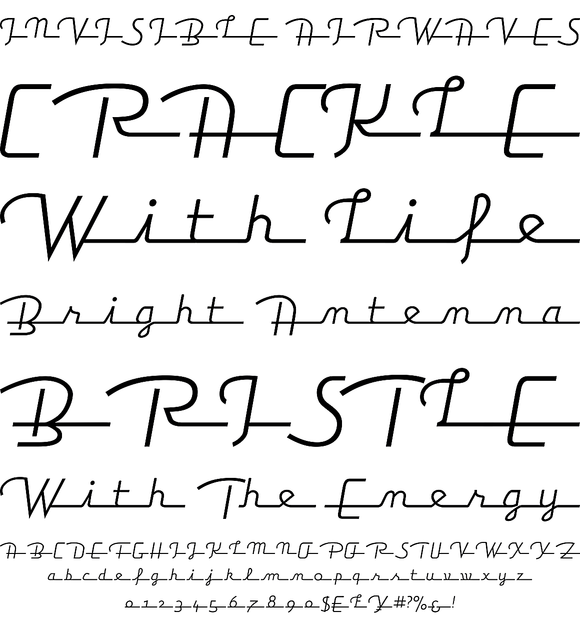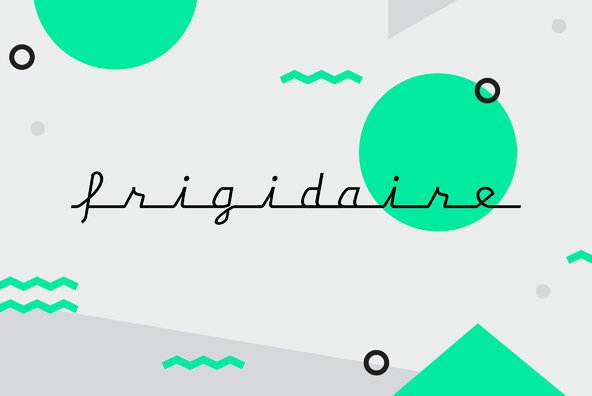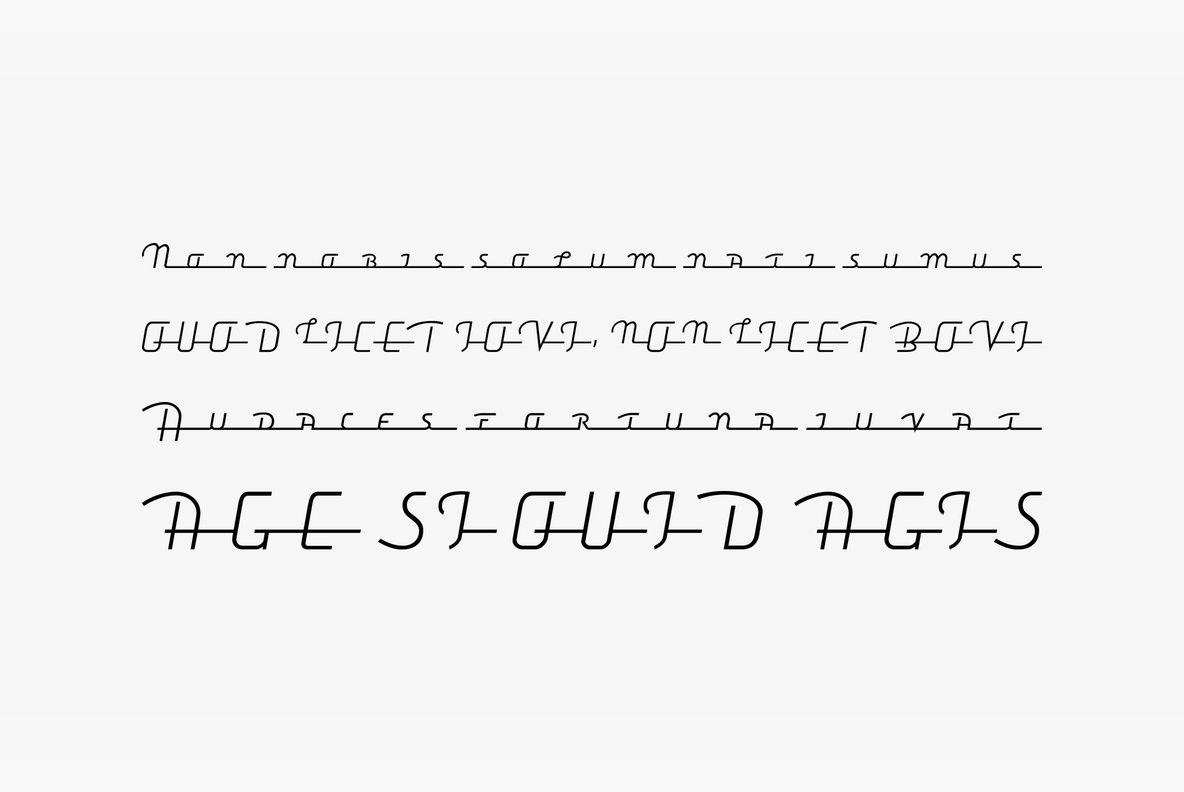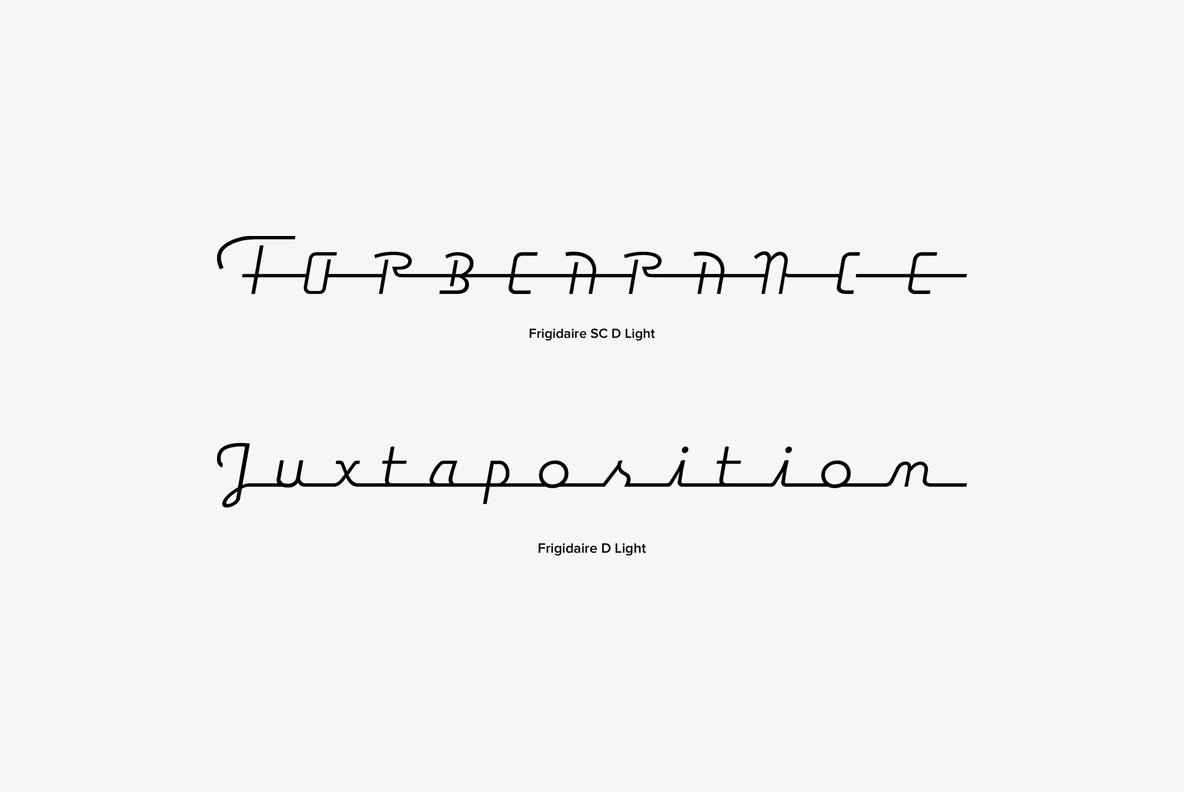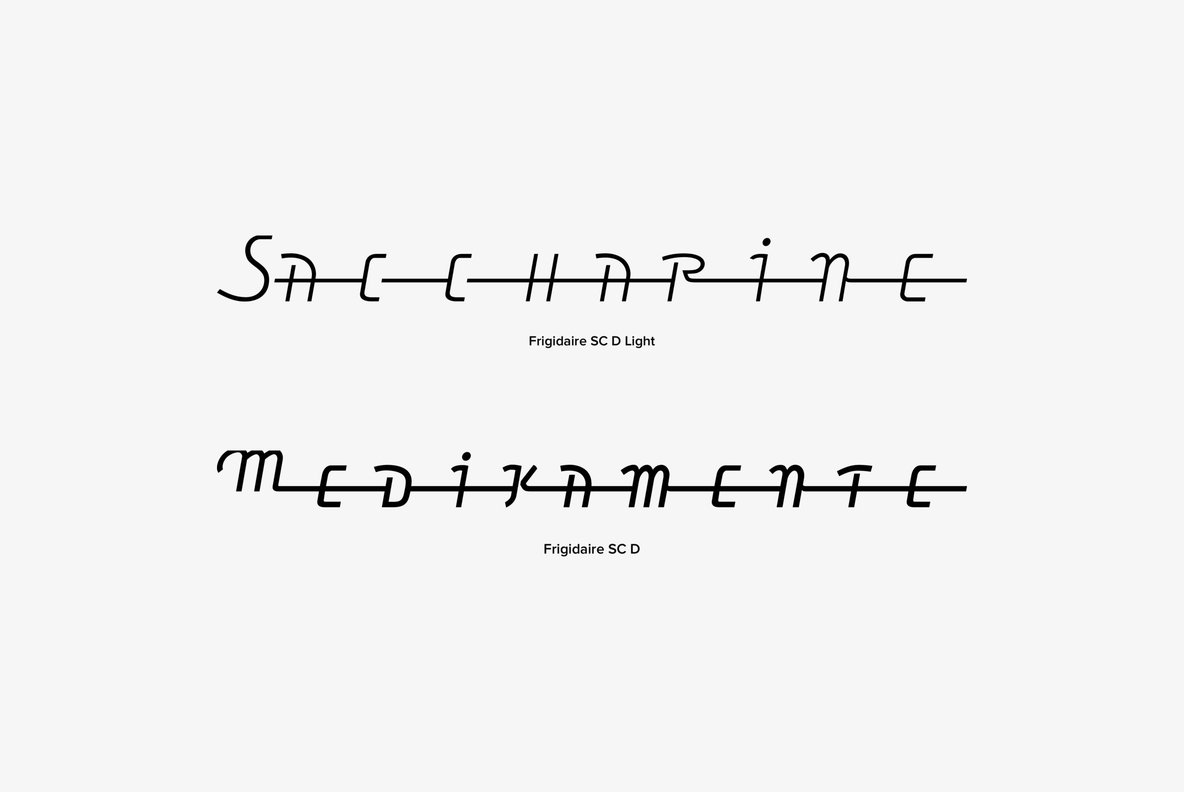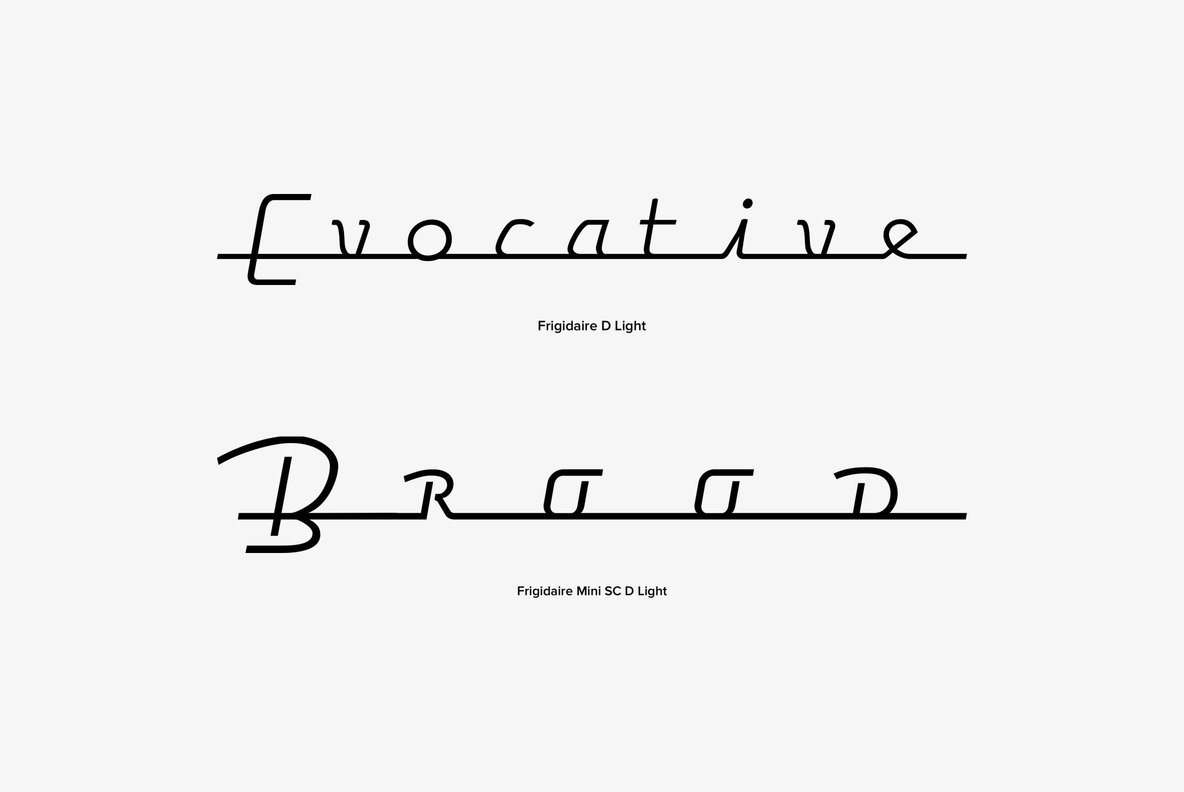
Frigidaire
Frigidaire is the digital version of the classic and retro type design for the refrigerator company, Frigidaire. Designed by Peter Guckes and Monica Fischer, released by URW++.